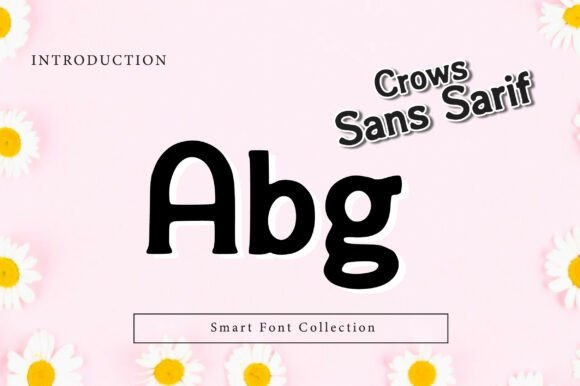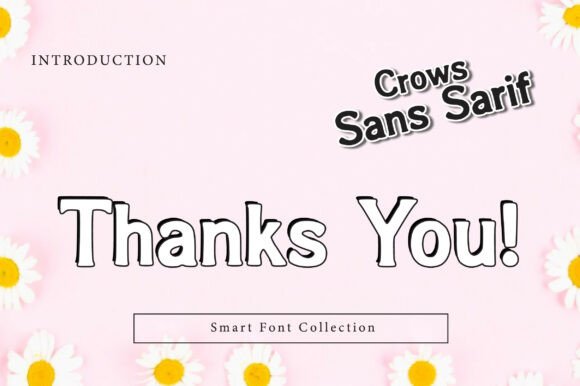
Crows Sans Sarif Font: Elevate Your Design with a Modern and Friendly Typeface
In the world of typography, finding the perfect font that balances modernity with approachability can be a daunting task. However, Crows Sans Sarif emerges as a beacon of simplicity and elegance, offering designers a clean, modern, and friendly sans serif typeface. Designed with soft curves and bold readability in mind, Crows Sans Sarif is poised to revolutionize the way we approach branding, packaging, and digital design.
The Essence of Crows Sans Sarif
Crows Sans Sarif is characterized by its smooth, rounded letterforms and minimalist structure, delivering a fresh and approachable look that works seamlessly for both branding and everyday design needs. This font is not just about aesthetics; it’s about creating a connection with the audience. Its balanced proportions and clean shapes make it highly readable across various sizes, rendering it perfect for both display and text applications.
One of the standout features of Crows Sans Sarif is its versatility. Whether you’re building a tech brand identity, creating minimal poster typography, designing UI graphics, or working on a modern startup logo, this font adapts effortlessly. Its friendly softness makes it an ideal choice for projects that need to feel modern, clean, and welcoming. From modern logos and product packaging to social media graphics, poster headlines, web design, and professional branding projects, Crows Sans Sarif brings a polished and contemporary feel to any design.
Why Choose Crows Sans Sarif?
- Clean and Modern Aesthetic: Crows Sans Sarif offers a sleek and modern look that instantly elevates your design.
- High Readability: Its clear and simple letterforms ensure that your message is conveyed effectively, regardless of the size.
- Versatile: Suitable for a wide range of design applications, from digital to print.
- Approachable: The soft curves and rounded edges give the font a friendly and welcoming feel.
- Balanced Proportions: Ensures harmony and consistency in your design, making it visually appealing.
Applications of Crows Sans Sarif
The applications of Crows Sans Sarif are vast and varied. Here are a few ideas to get you started:
- Branding: Create a lasting impression with a modern and clean logo that stands out.
- Digital Marketing: Enhance your social media graphics and website design with a font that communicates effectively and looks great on all devices.
- Print Design: From posters and brochures to product packaging, Crows Sans Sarif brings a touch of modern elegance.
- UI/UX Design: Improve user experience with clear and readable typography that guides the user effortlessly.
Crows Sans Sarif is more than just a font; it’s a design solution that bridges the gap between modernity and approachability. Its clean lines, soft curves, and versatile nature make it an indispensable tool for designers and crafters looking to leave a mark. Whether you’re aiming for a sleek corporate look or a friendly and approachable vibe, Crows Sans Sarif is the perfect companion for your design journey. Embrace the simplicity, elegance, and effectiveness of Crows Sans Sarif and watch your designs transform into memorable experiences.
With Crows Sans Sarif, you’re not just choosing a font; you’re choosing a way to communicate, to connect, and to create. Its presence in your design toolkit is a promise of delivering quality, clarity, and a touch of modern sophistication. So, dive into the world of Crows Sans Sarif and discover how this simple yet powerful typeface can elevate your designs to new heights.